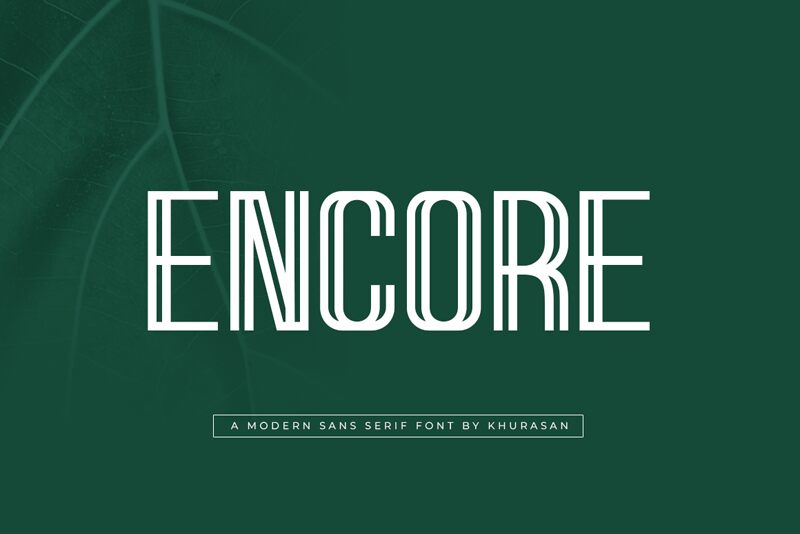
Encore
Encore, the sleek and elegant modern sans serif font designed by Khurasan, is perfect for any project that requires a touch of sophistication. The semi-light weight and condensed width make it ideal for minimalist designs, while its clean lines and strong geometric shapes add a contemporary feel to any text. Whether you're creating branding materials for a high-end fashion label or designing a website for a tech startup, Encore's versatility will elevate your work to the next level. With its refined look and impressive legibility, this semi-light font is sure to make an impact in any context.